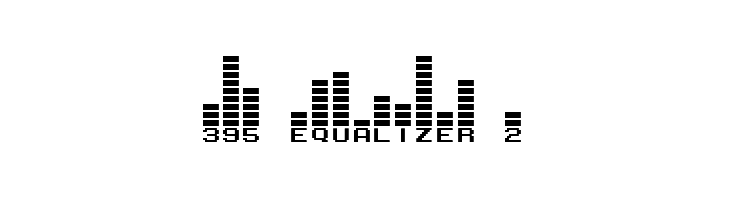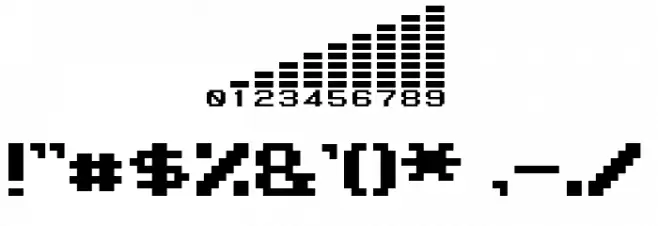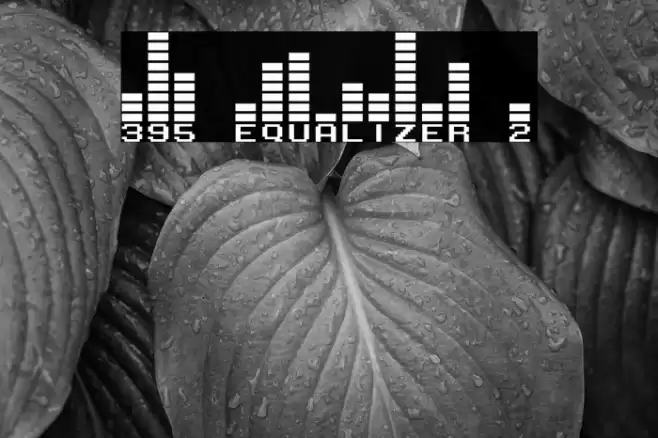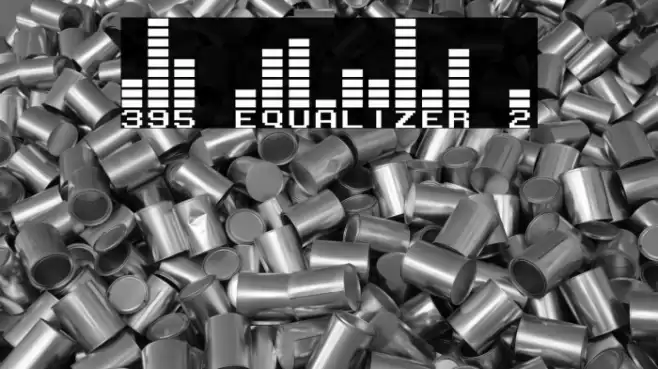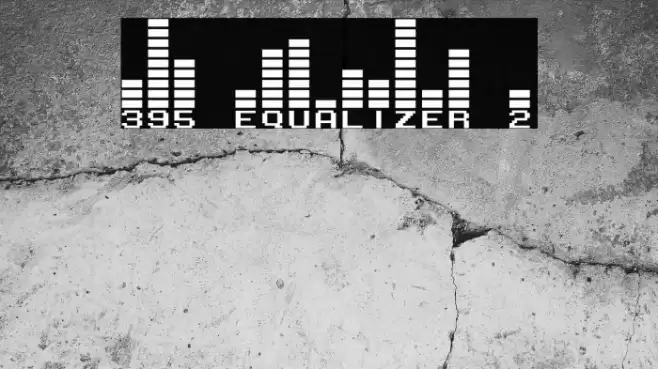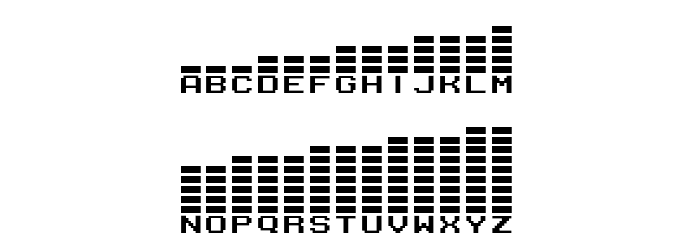
395 equalizer 2 Font
| Proiecte propuse | Ideal for projects involving retro video games, digital displays, tech-themed designs, or any creative work that requires a nostalgic digital look. |